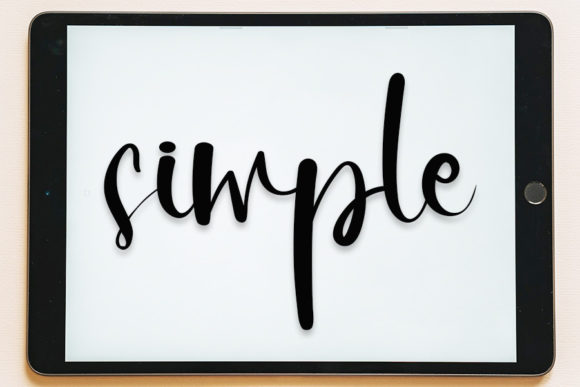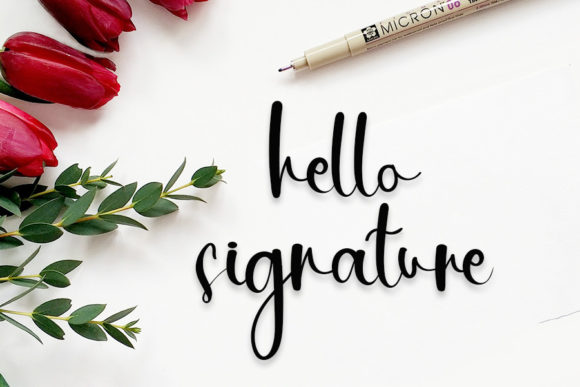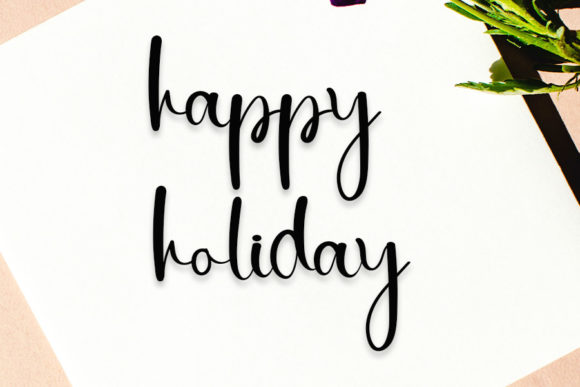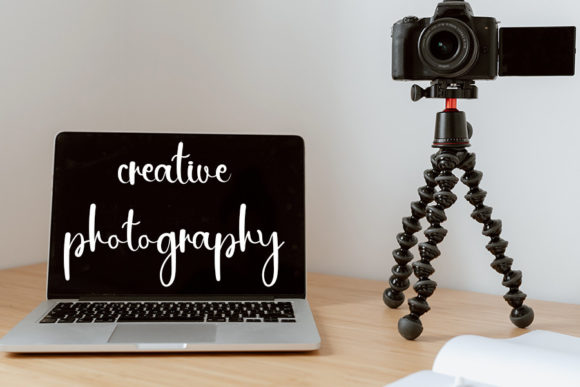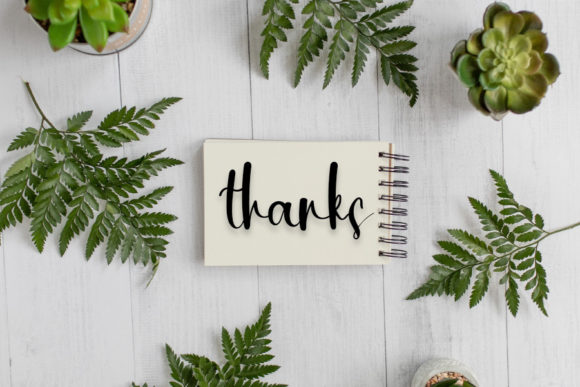
Simple Font
About Simple Font
Simple, with its sweet and delicate handwritten style, emanates a sense of daintiness and joyfulness. This font is a perfect choice for projects that require a romantic and personalized touch, such as wedding invitations, cards, and other designs where an intimate and charming aesthetic is desired.
The simplicity of the font adds to its charm, making it suitable for conveying heartfelt messages on wedding invitations. The delicate strokes and joyful demeanor of Simple contribute to creating an atmosphere of romance, setting the tone for a special celebration.
For cards, whether they are expressing love, gratitude, or other sentiments, Simple provides a warm and personalized touch. The handwritten quality of the font adds authenticity, making the messages more heartfelt and meaningful.
The font’s sweet and delicate nature makes it an ideal choice for projects that aim to evoke a sense of intimacy and joy. Its versatility allows it to shine in various design contexts, bringing a touch of warmth and personality to every application.
In summary, Simple is more than just a font; it’s a design asset that infuses sweetness and delicacy into your projects. Whether used for wedding invitations or heartfelt cards, its handwritten charm creates an intimate and joyful atmosphere, making it a perfect choice for those seeking a romantic and personalized touch in their designs.